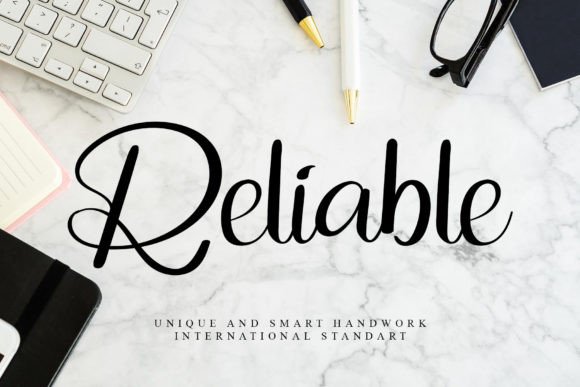
Step into a world of artistic expression with Reliable Font - a script font family that embodies elegance and creativity. Inspired by the grandeur of art exhibitions, BabyArt brings you this unique font, delicately crafted to elevate your projects to new heights.
With its professional hand touch, Reliable Font breathes life into your words, making them dance with grace and charm. Let this font take you on a journey of creative exploration, unlocking the potential of your imagination.
Visualize your wedding invitations, birthday cards, and party flyers adorned with the exquisite curves of Reliable Font. Its versatility extends to school assignments, presentations, and any project that demands a touch of sophistication.
Effortlessly accessible with all glyphs, Reliable Font is your gateway to a world of boundless creativity. Unleash your artistic vision, let your ideas flow freely, and transform your projects into masterpieces.
Don't settle for ordinary fonts. Choose Reliable Font and embark on a creative odyssey that will leave a lasting impression. Experience the joy of crafting designs that captivate hearts and ignite imaginations.